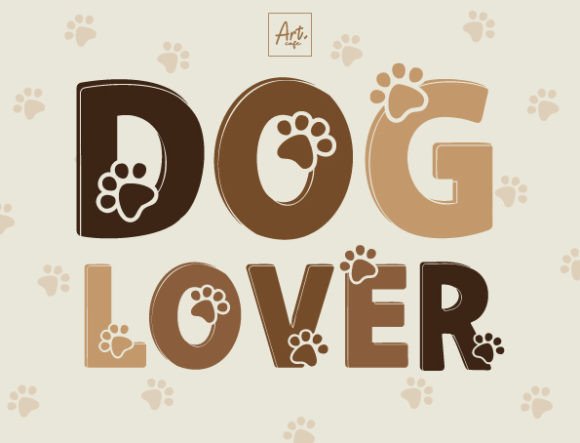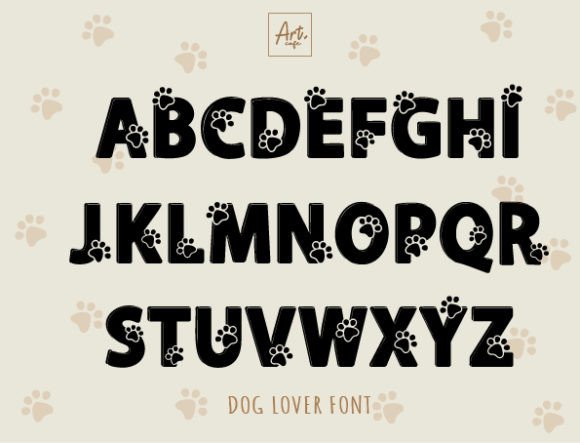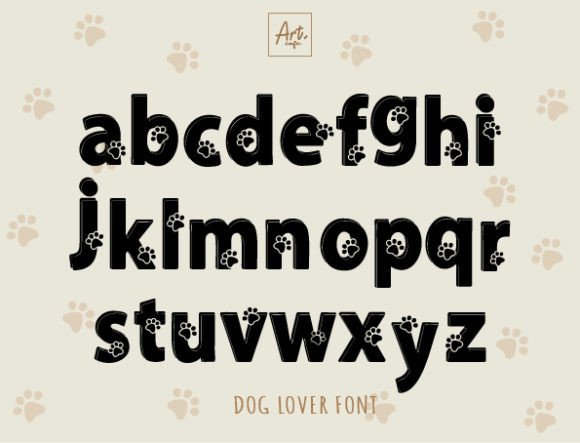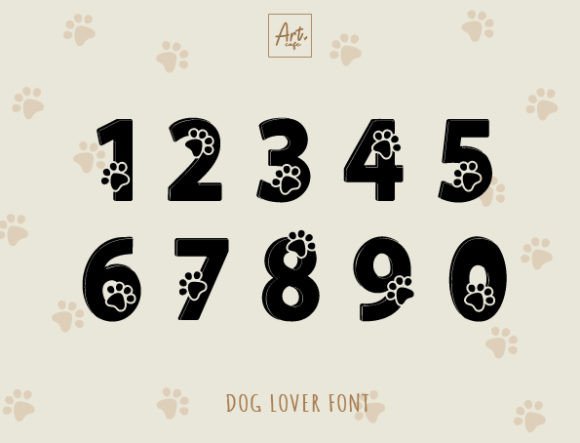
Dog Lover Font
About the Dog Lover Font
We are excited to introduce Dog Lover Font, a must-have typeface for any serious designer. Dog Lover font is cute and suitable for dog lover and kids. This font is bold, it offers support for all characters of the English language for display font.
It can be used for any design project e.g. posters, t-shirts, mugs, kid’s projects, planners, stickers, home decor, etc.
Its playful, bold style makes it ideal for headlines, logos for pet-related businesses, and children’s products. It works exceptionally well on packaging, posters, and social media graphics where a friendly, approachable feel is desired. However, its strong weight and decorative nature make it unsuitable for body text or UI elements requiring high readability.
Consider pairing Dog Lover Font with a clean sans-serif like Open Sans for body text to create contrast and balance. For a more sophisticated look, a delicate serif such as Lora could complement its boldness. Alternatively, a playful script font could enhance the overall whimsical feel, though careful selection is key to avoid visual clutter.
The font’s core personality is undeniably cheerful and approachable; its bold forms convey a sense of fun and energy, making it perfect for brands aiming for a youthful and engaging image.
Dog Lover Font Usage Examples
Dog Lover Font Example